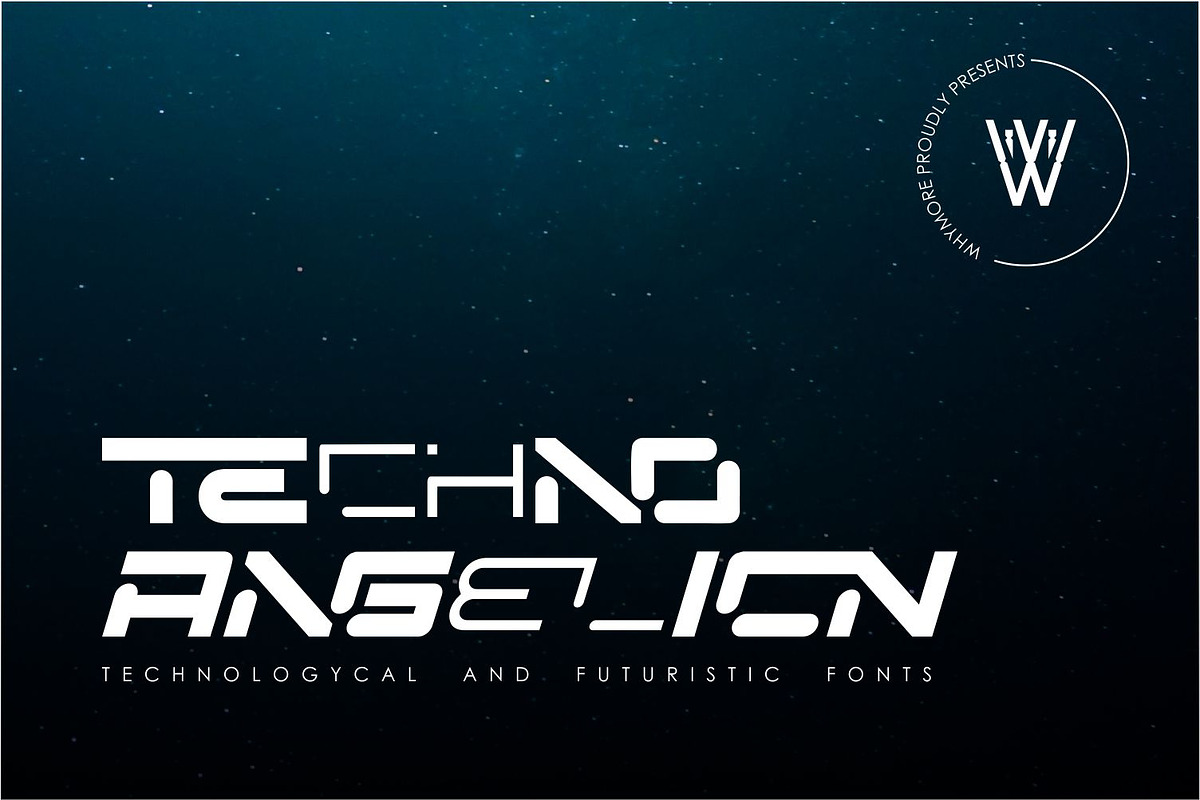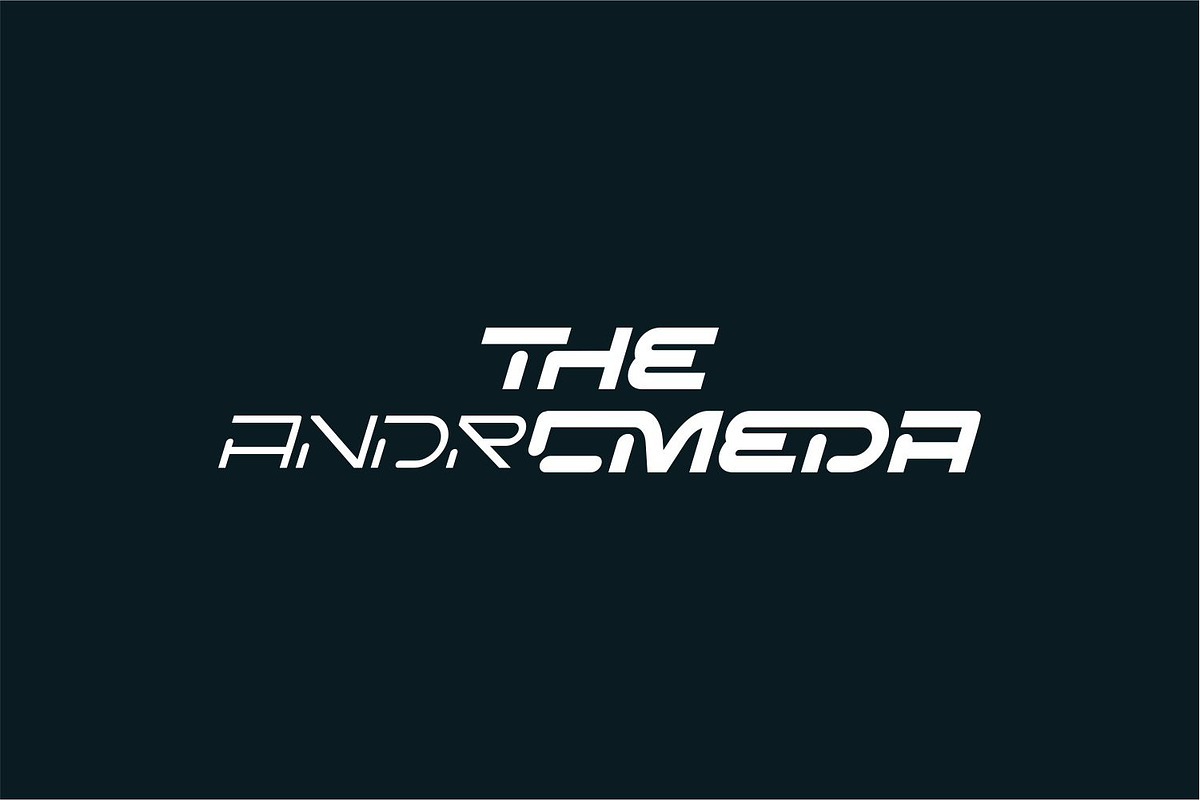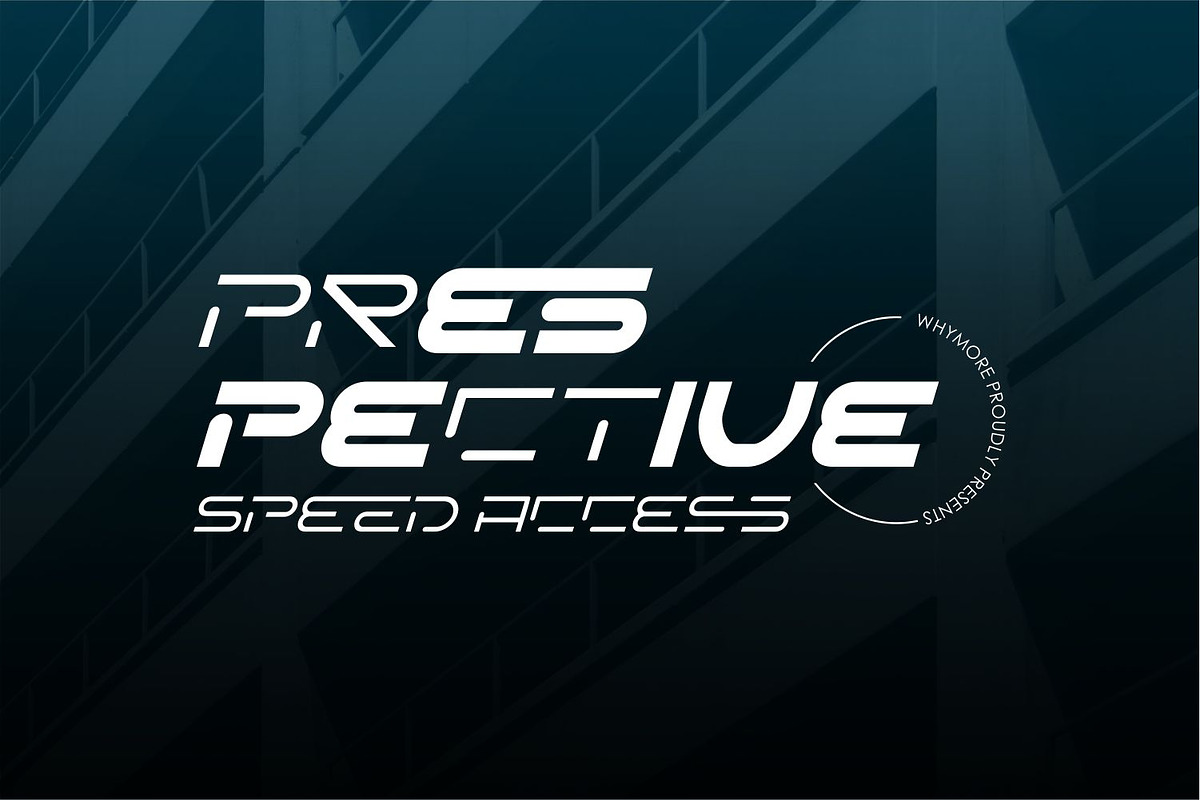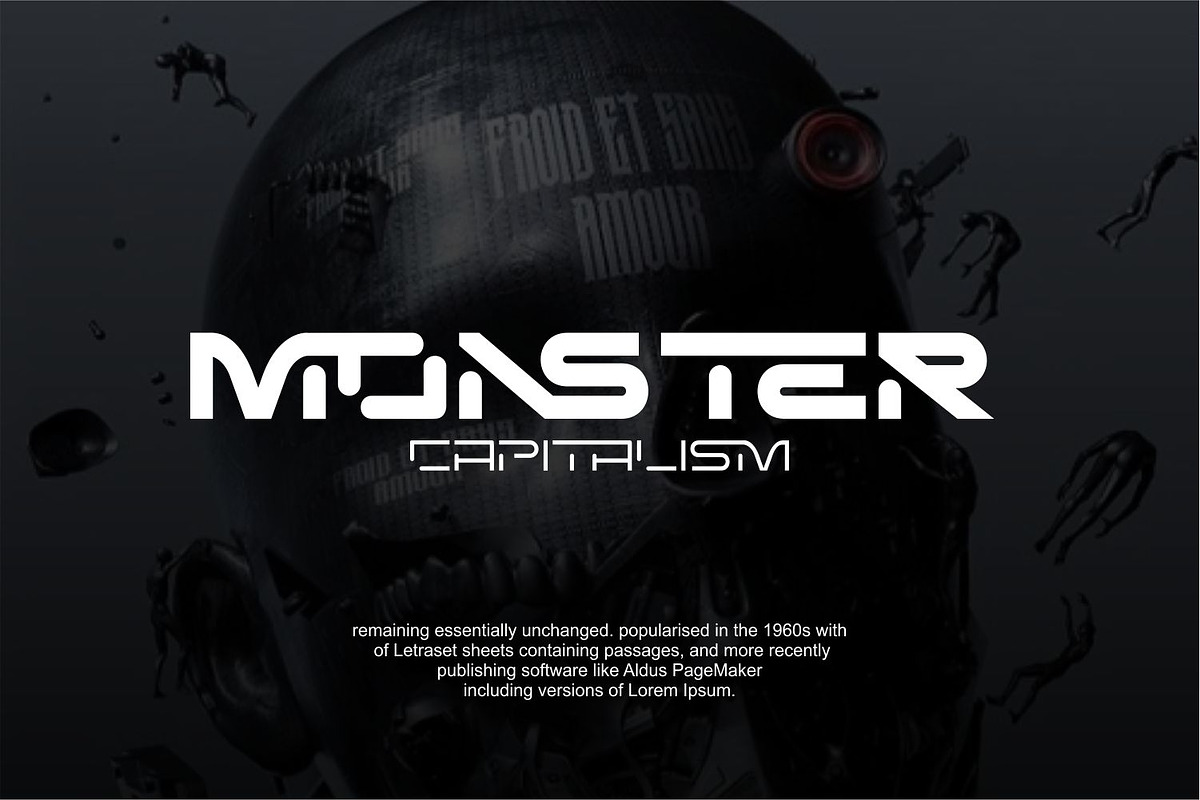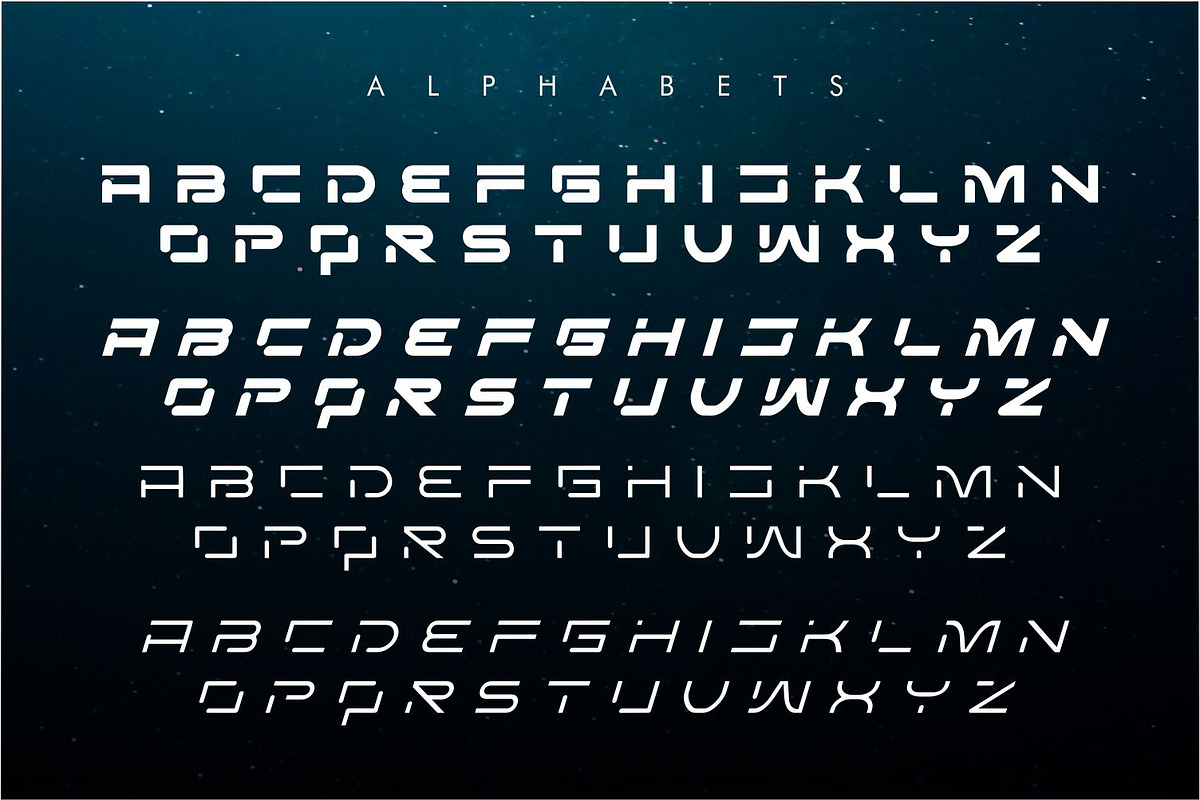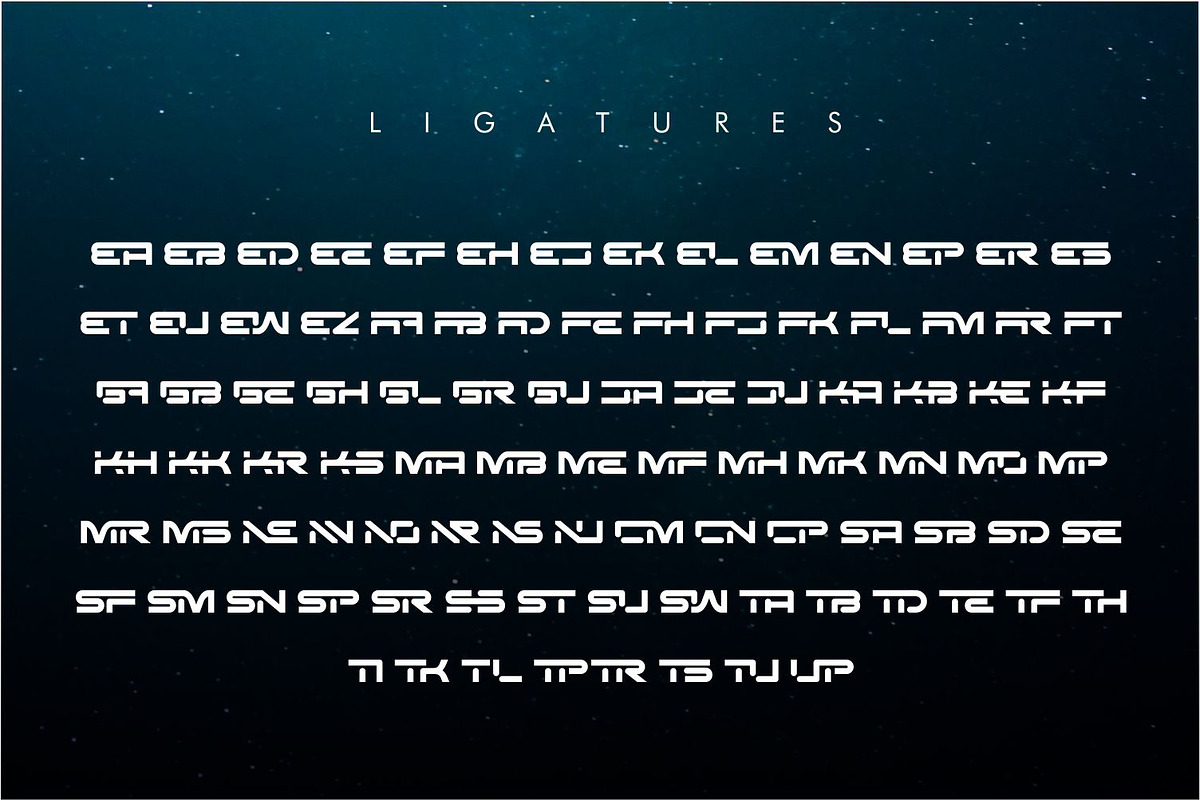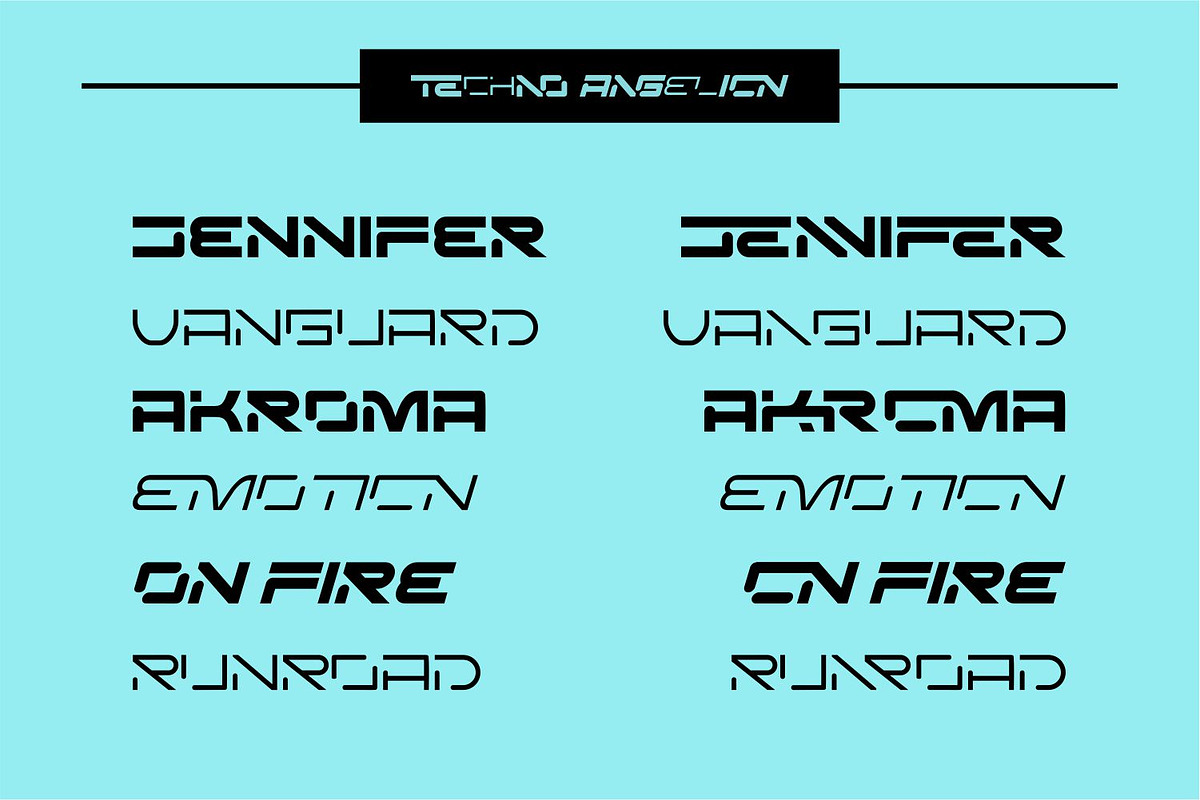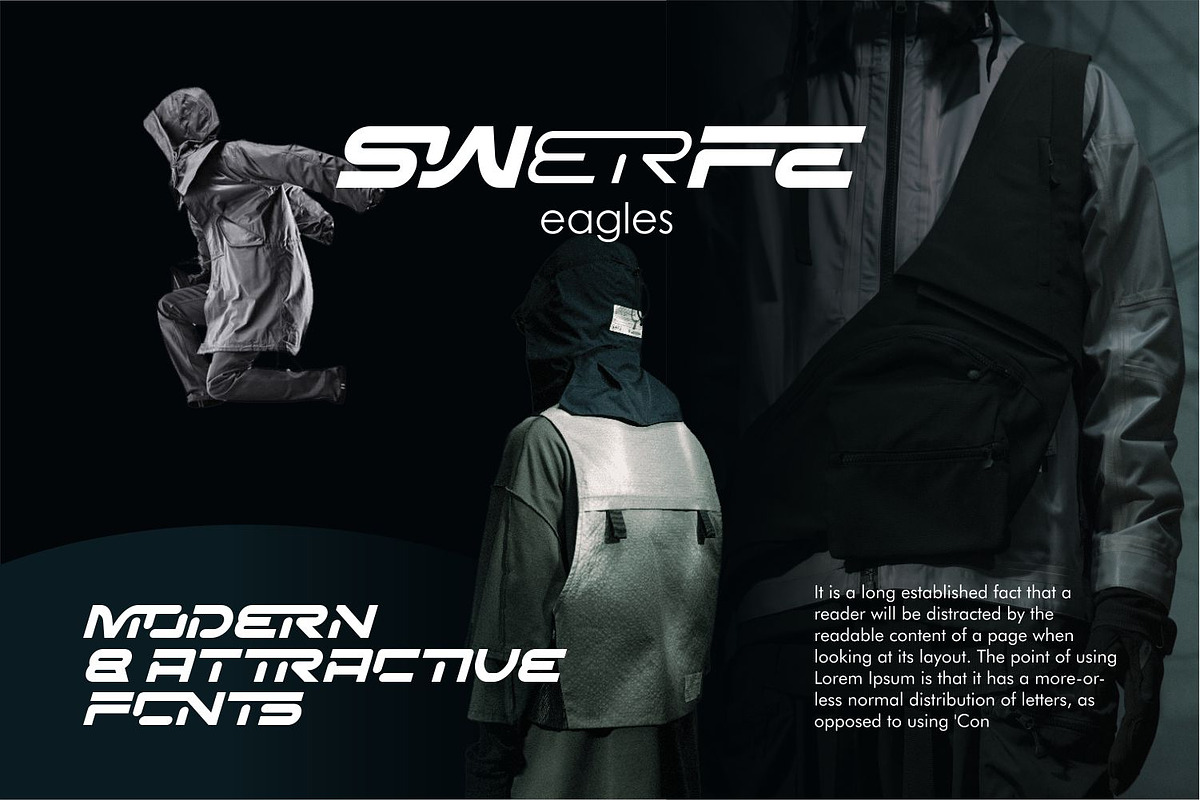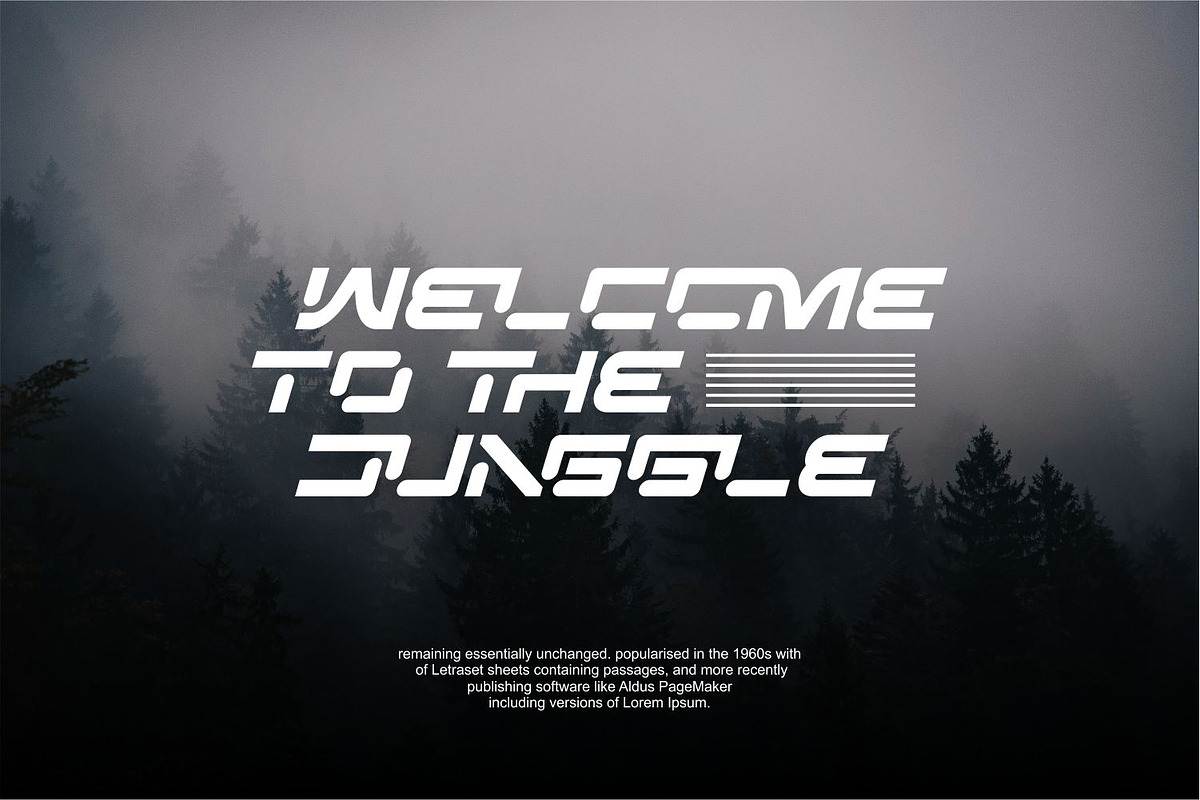
Techno Angelion Futuristic Font
The Techno Angelion Font is a futuristic typeface that embodies innovation and modernity with its sleek and dynamic design. Inspired by advanced technology and forward-thinking design, this font features sharp angles, geometric shapes, and a sense of movement that captures the essence of progress and sophistication. Whether you’re designing for sci-fi themes, tech startups, or futuristic branding, the Techno Angelion Font adds a touch of contemporary flair that captivates the viewer. Its minimalist design and versatility make it perfect for a wide range of digital and print applications. Embrace the future of design with the Techno Angelion Font.